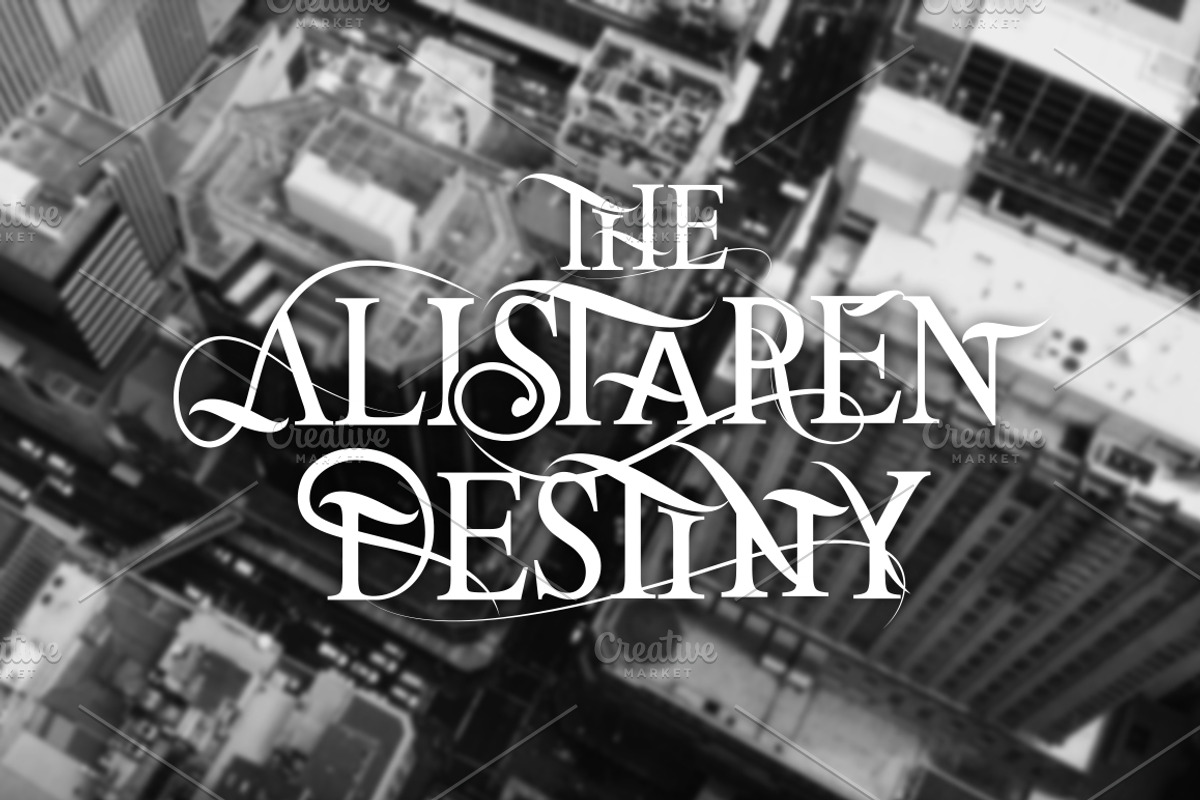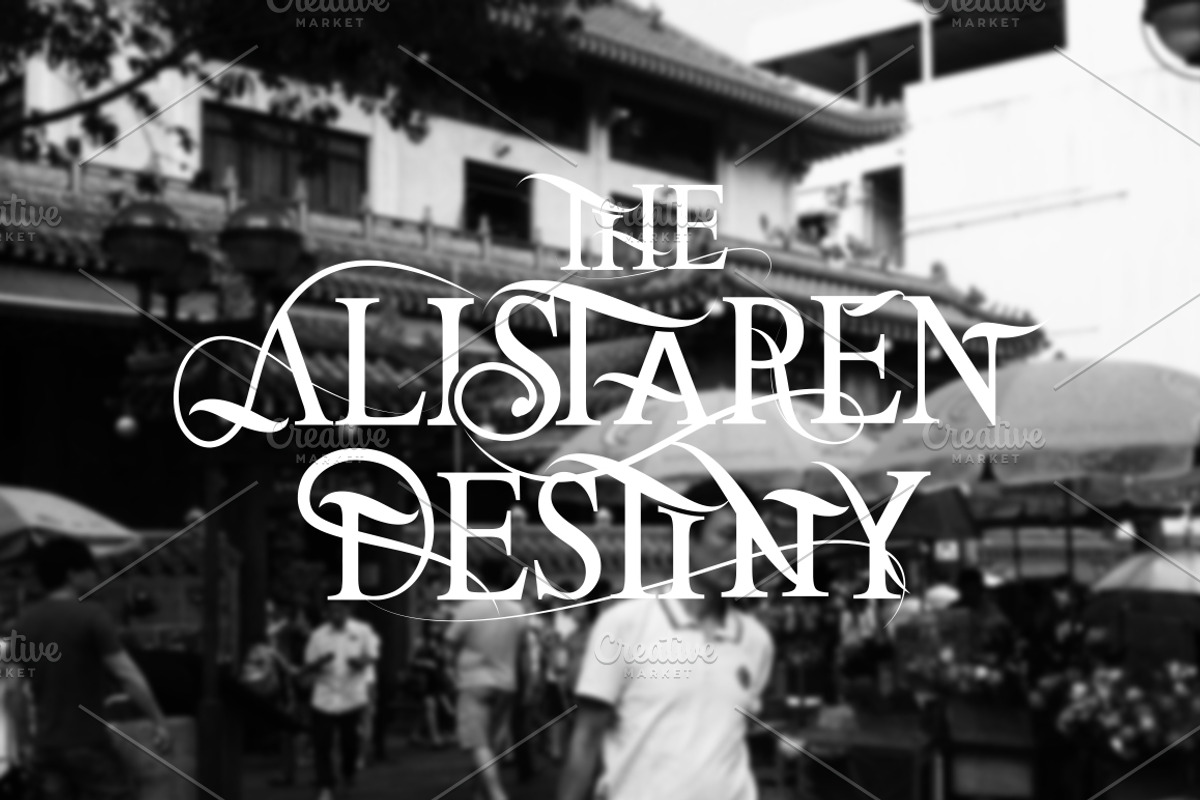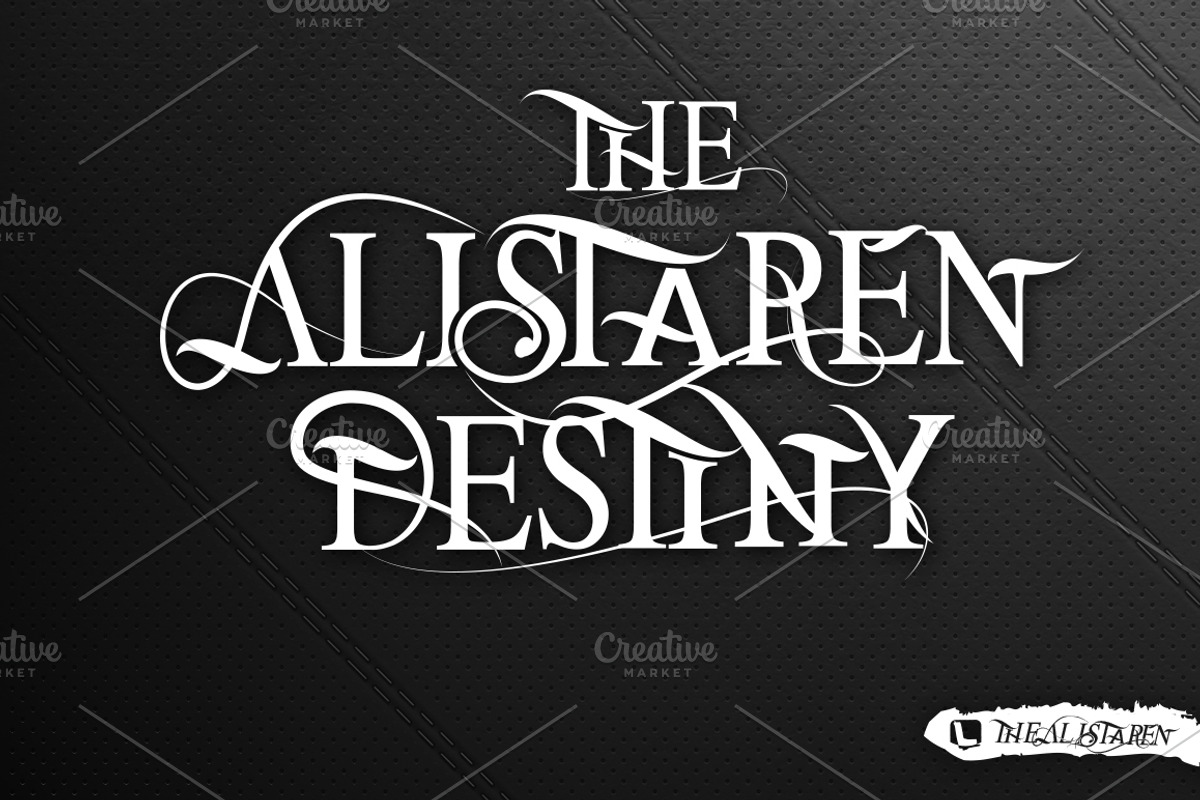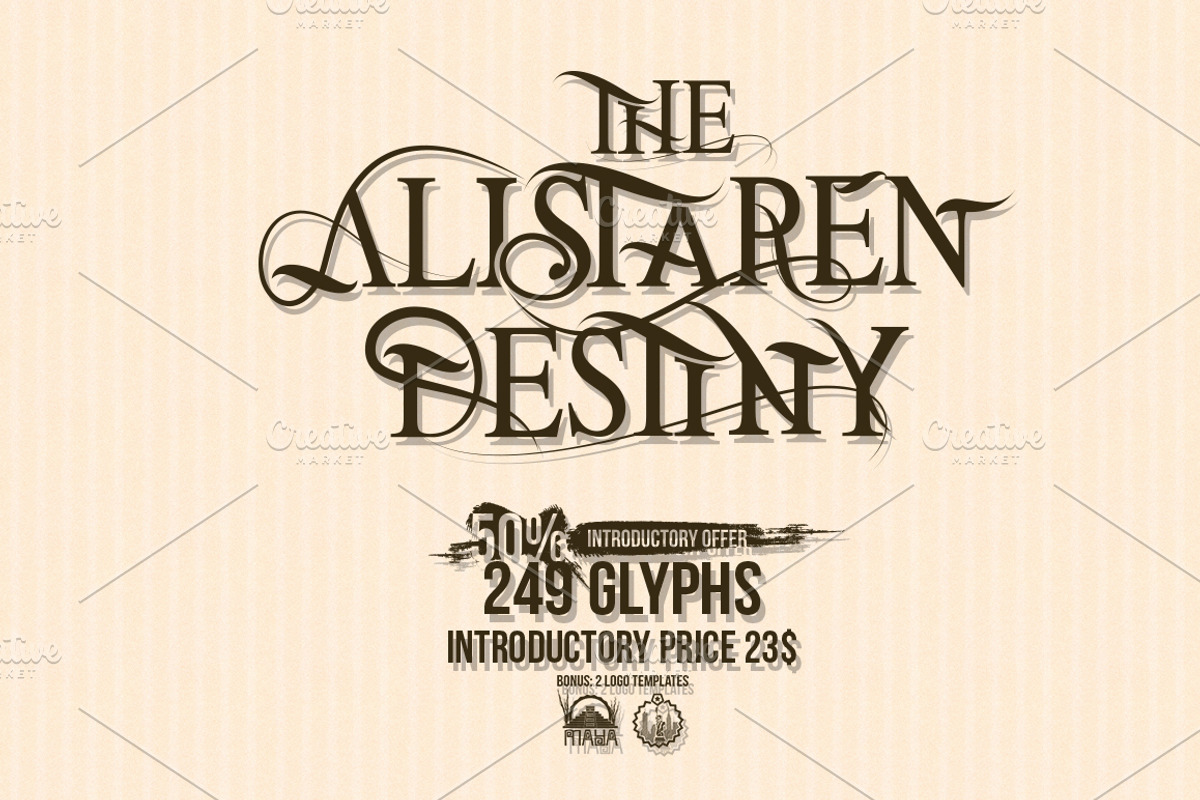
Font | The Alistaren - 50% Off!
Font | The Alistaren - 50% Off! by Leonard Posavec is a font selected for branding, posters, packaging, typography.
Font | The Alistaren - 50% Off! by Leonard Posavec fits naturally into Branding, posters, packaging, typography.